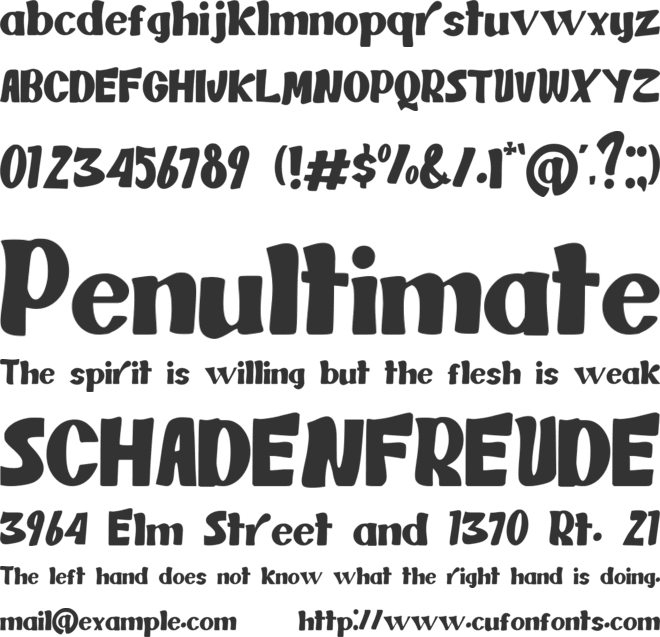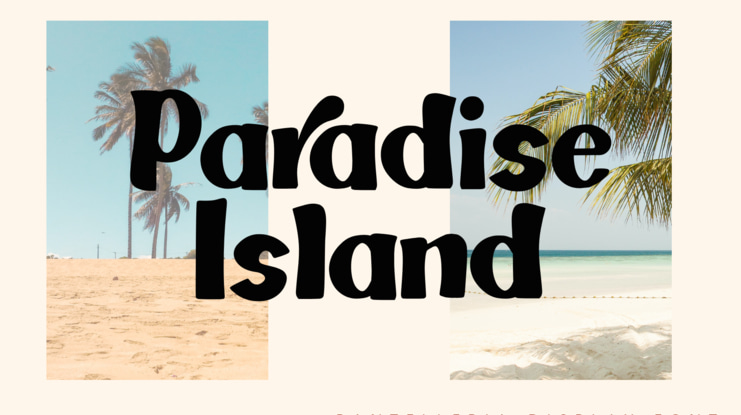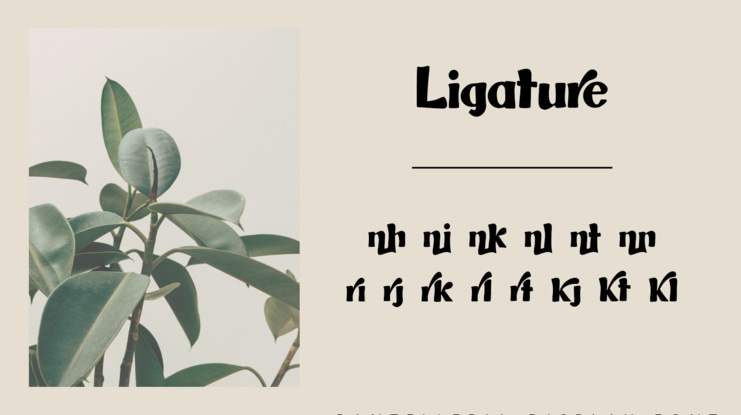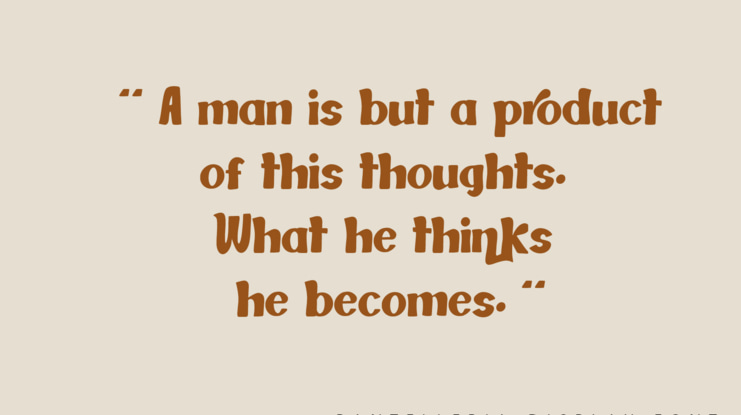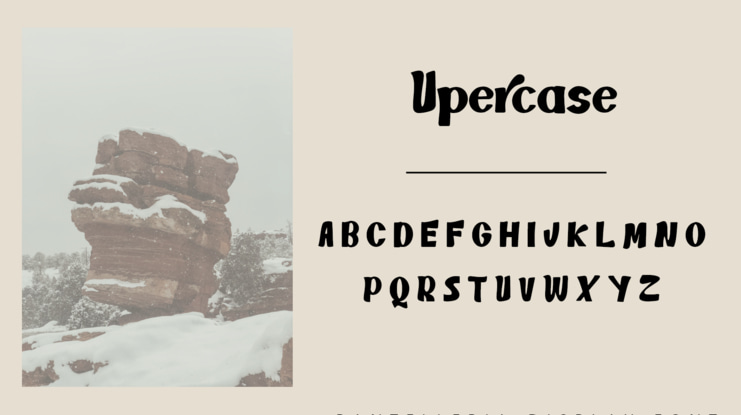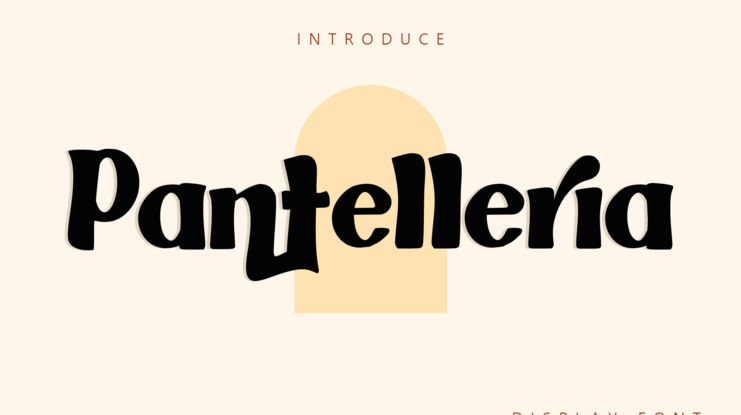
Pantelleria Font
Pantelleria is a display font with a nice classic feel, Bold curves give it a beautiful and nostalgic feel. Pantelleria comes with lowercase and uppercase letters plus numbers, punctuation & unique ligatures. Pantelleria is suitable for logo design purposes, business card brochures, nameplates and many more.